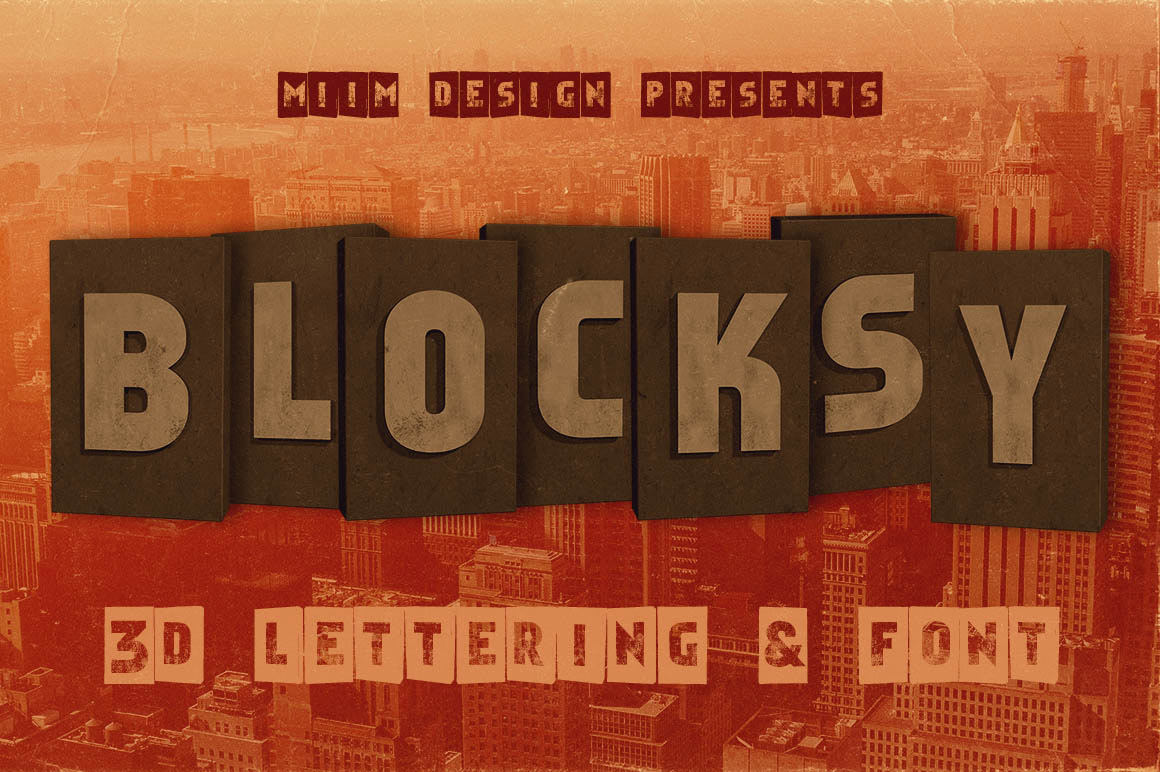
Blocksy - 3D Lettering & Font
Hi-res 3D creative letter renders (2000x2000, 300dpi). Great for your headers or print projects. Custom font & vectors also included!